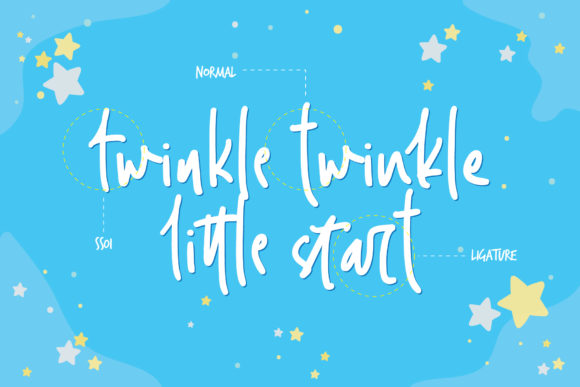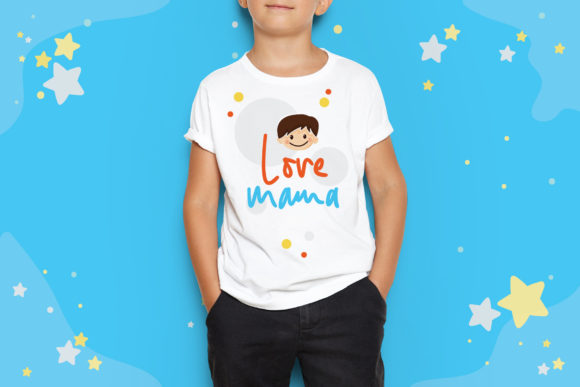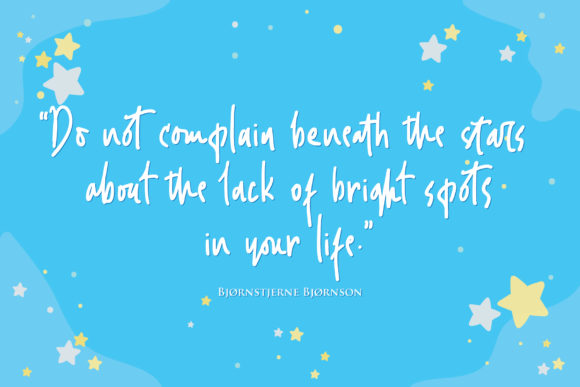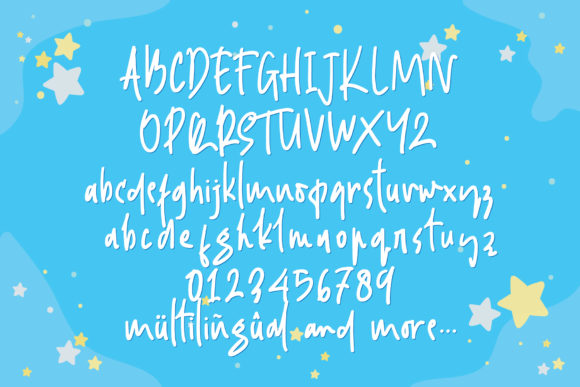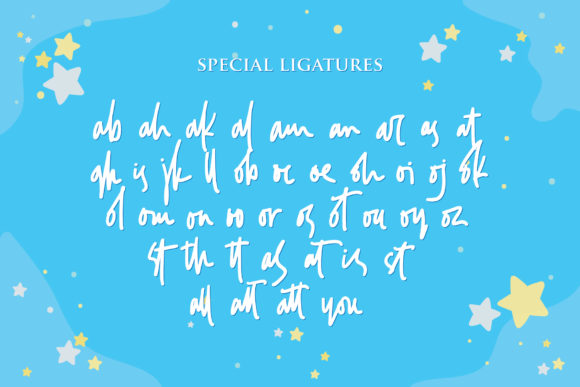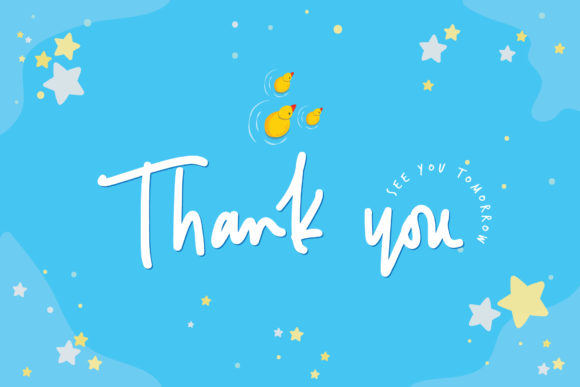
Introduction to Modis Font Font
Fonts play a crucial role in design, and the Modis Font font is a typeface that brings both character and versatility to any project. Whether you’re working on a branding project, a website, or a print design, the Modis Font font offers a unique style that can elevate your work.
Modis is a casual, fun handwritten font, created by using a brush pen.
Clean and a little bit quirky, this font is the perfect fit for all of your logos, branding, social media, and crafty DIY projects .
Key Features of Modis Font Font
Why Choose Modis Font Font?
The Modis Font font is more than just a typeface – it’s a design tool that helps you communicate your message with style and clarity. Its unique character set and versatile design make it suitable for a wide range of applications, from elegant invitations to bold headlines.
With its carefully crafted letterforms and balanced proportions, the Modis Font font ensures readability and visual appeal across all mediums.
What makes Modis Font font special?
The Modis Font font stands out with its unique design, exceptional readability, and versatility across various design applications.